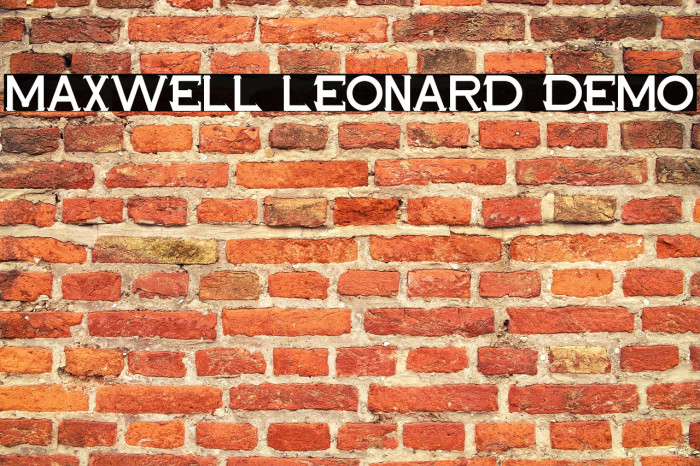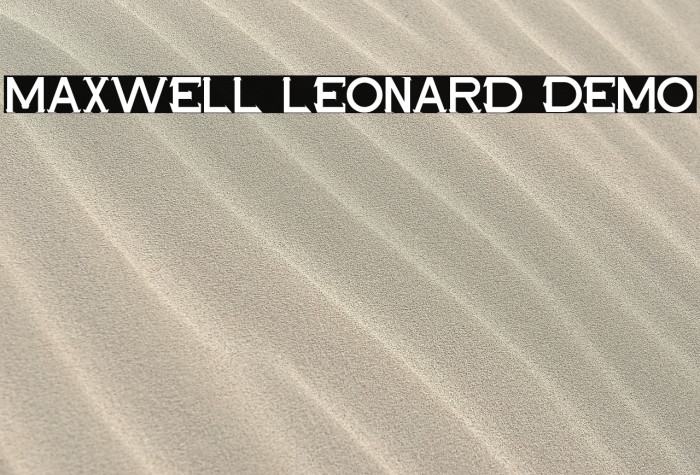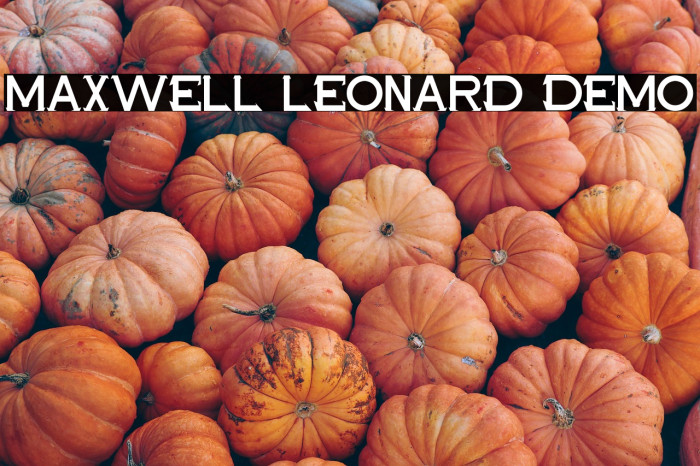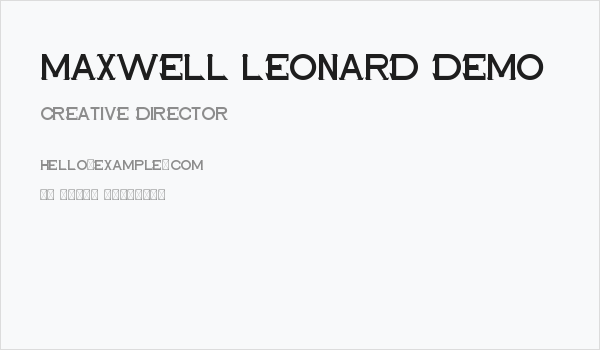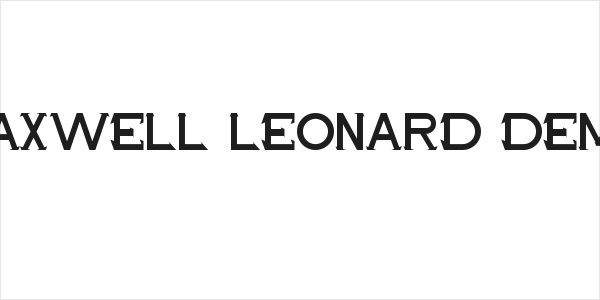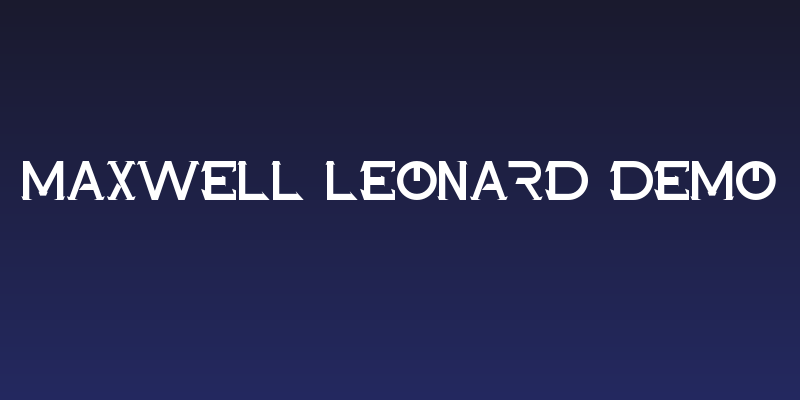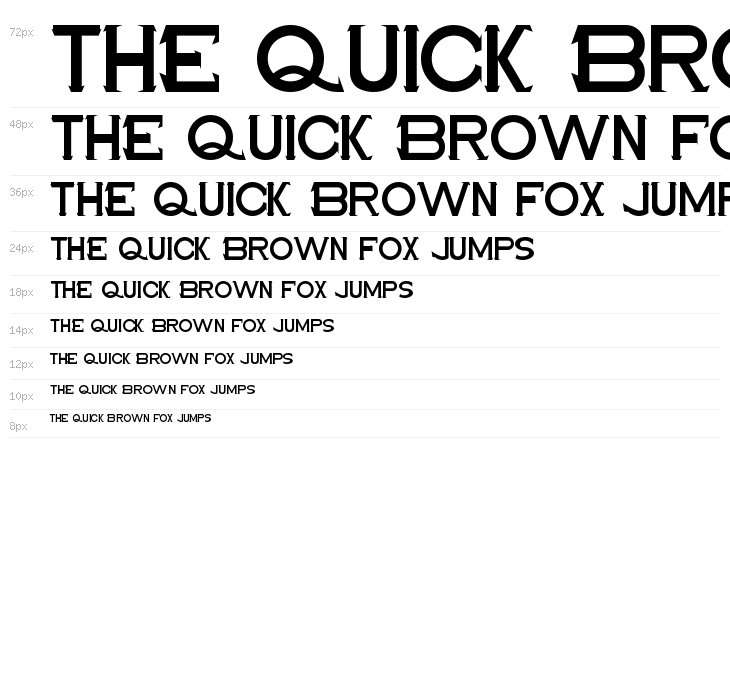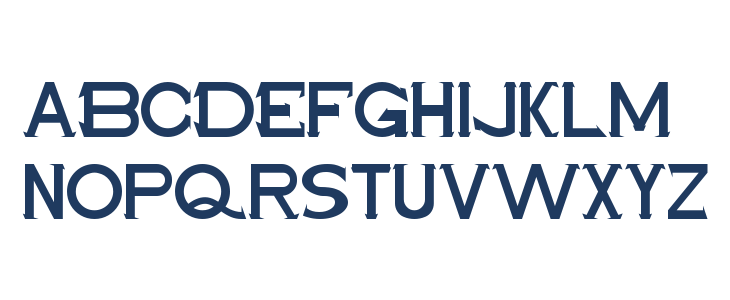
Maxwell Leonard Demo Font
Maxwell Leonard Demo Description
This font features a bold and striking design with a strong geometric influence. The characters are constructed with sharp angles and clean lines, giving them a modern and edgy appearance. The uppercase letters exhibit a unique style with distinct cutouts and notches, adding a sense of dynamism and movement. The font maintains a consistent weight throughout, ensuring readability while still making a bold statement. Its design is both contemporary and versatile, suitable for a variety of creative applications. The overall aesthetic is sleek and professional, making it ideal for projects that require a modern and impactful look.
| Proposed Projects | Ideal for branding, headlines, posters, and modern digital designs. |